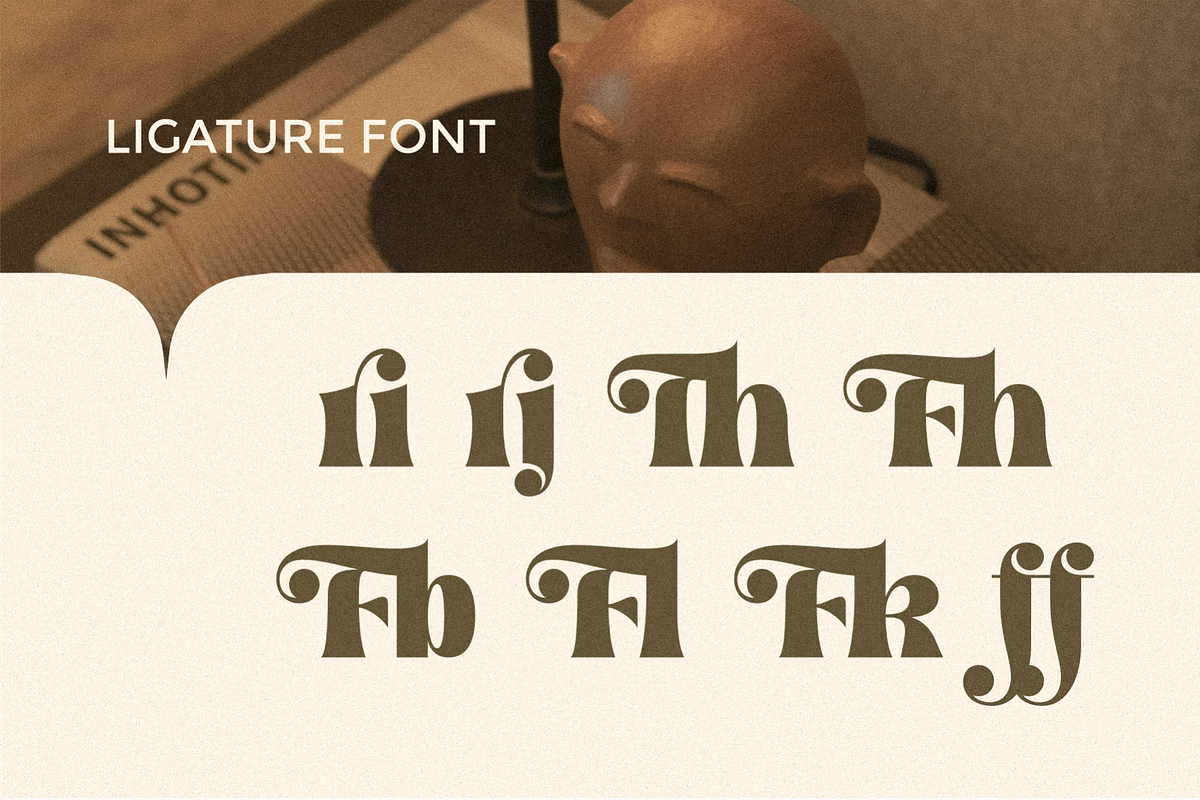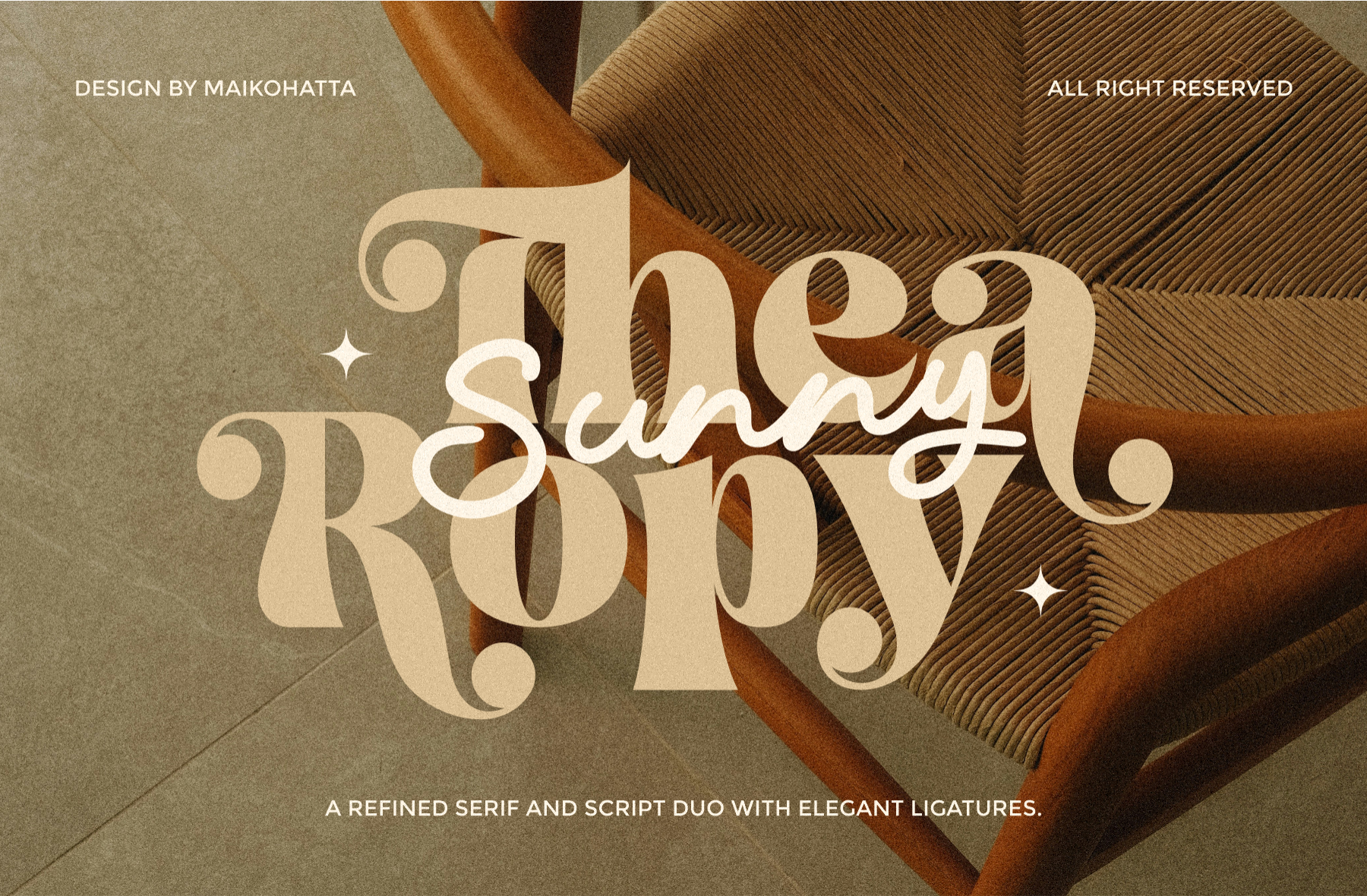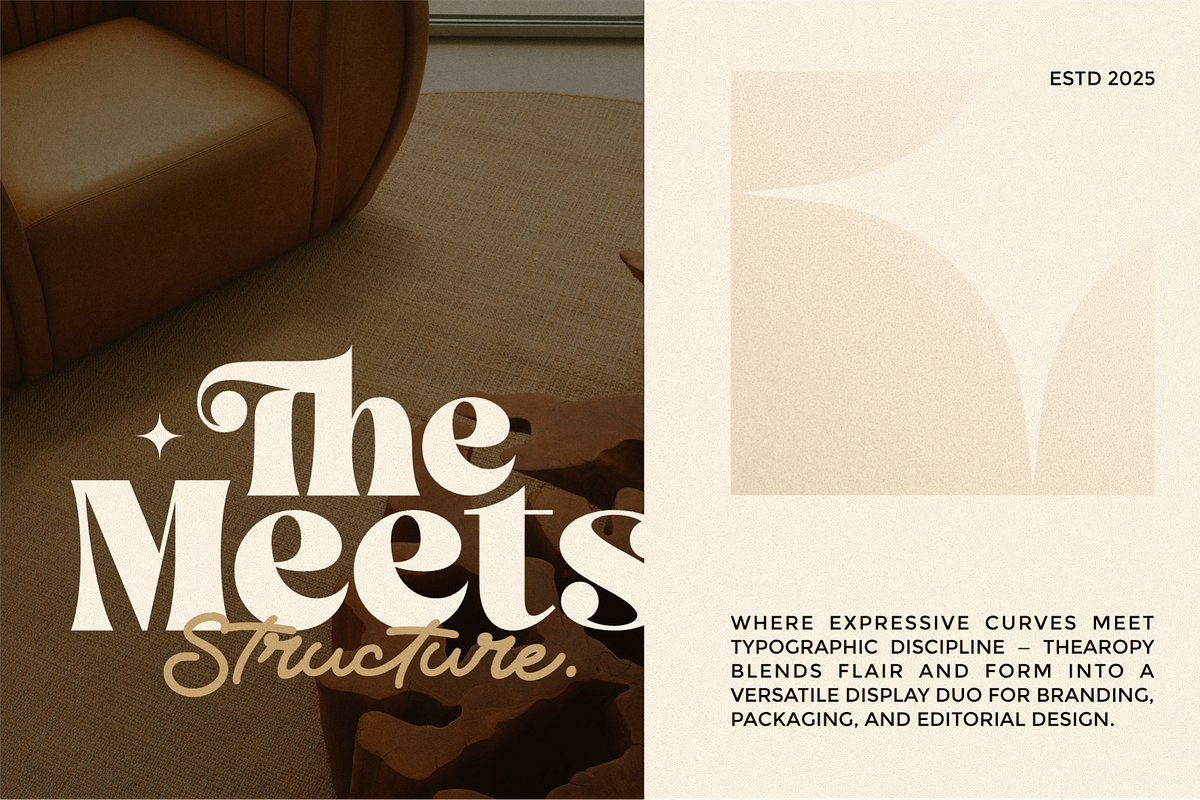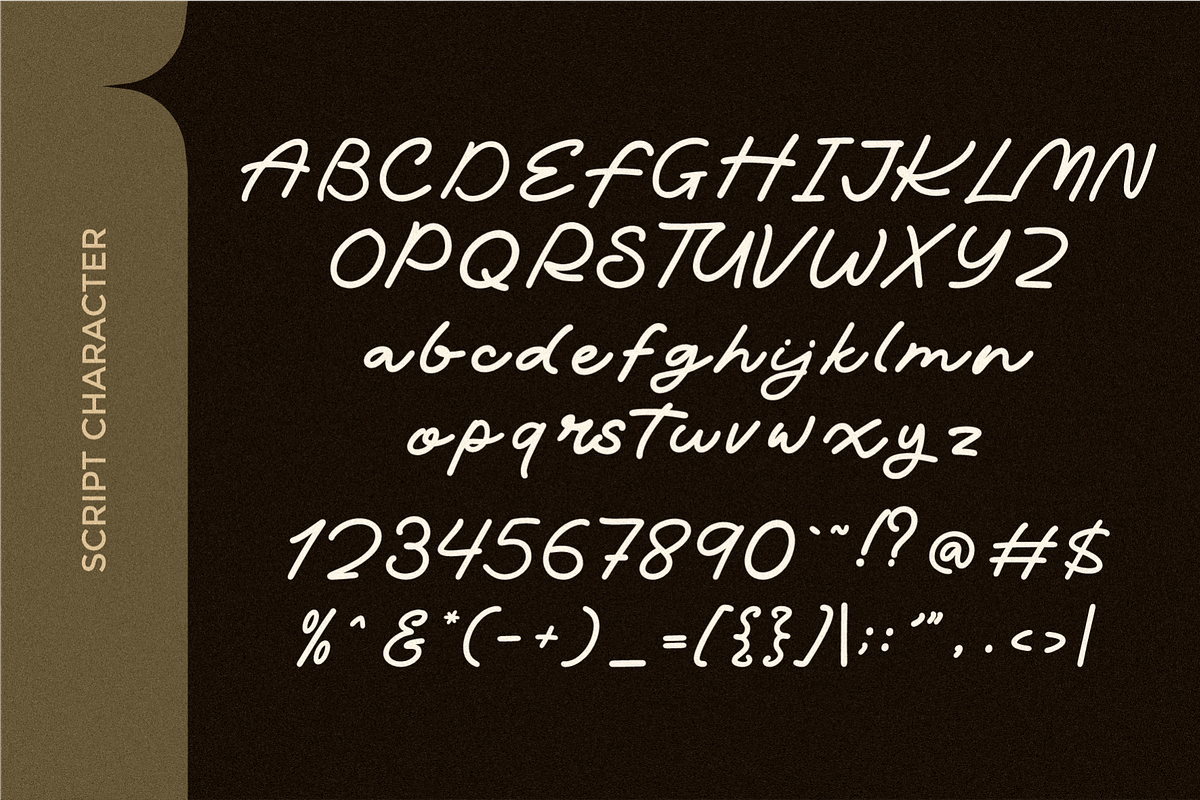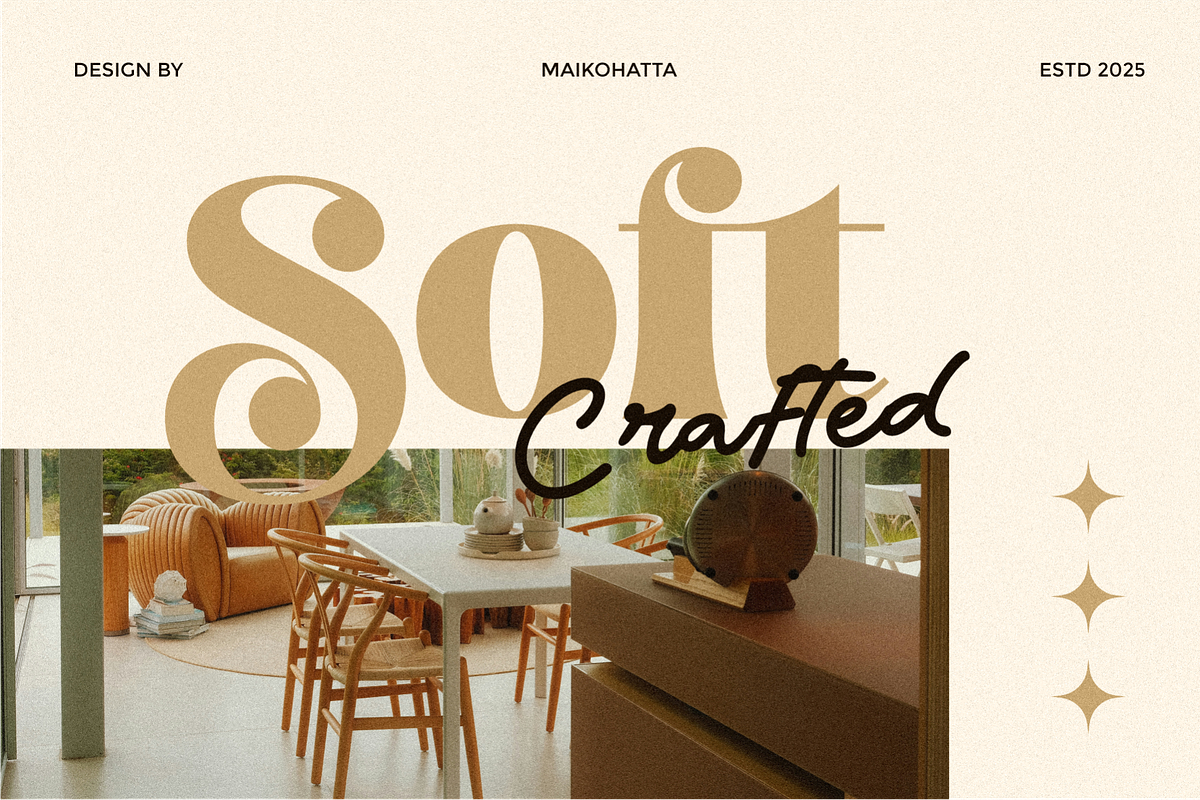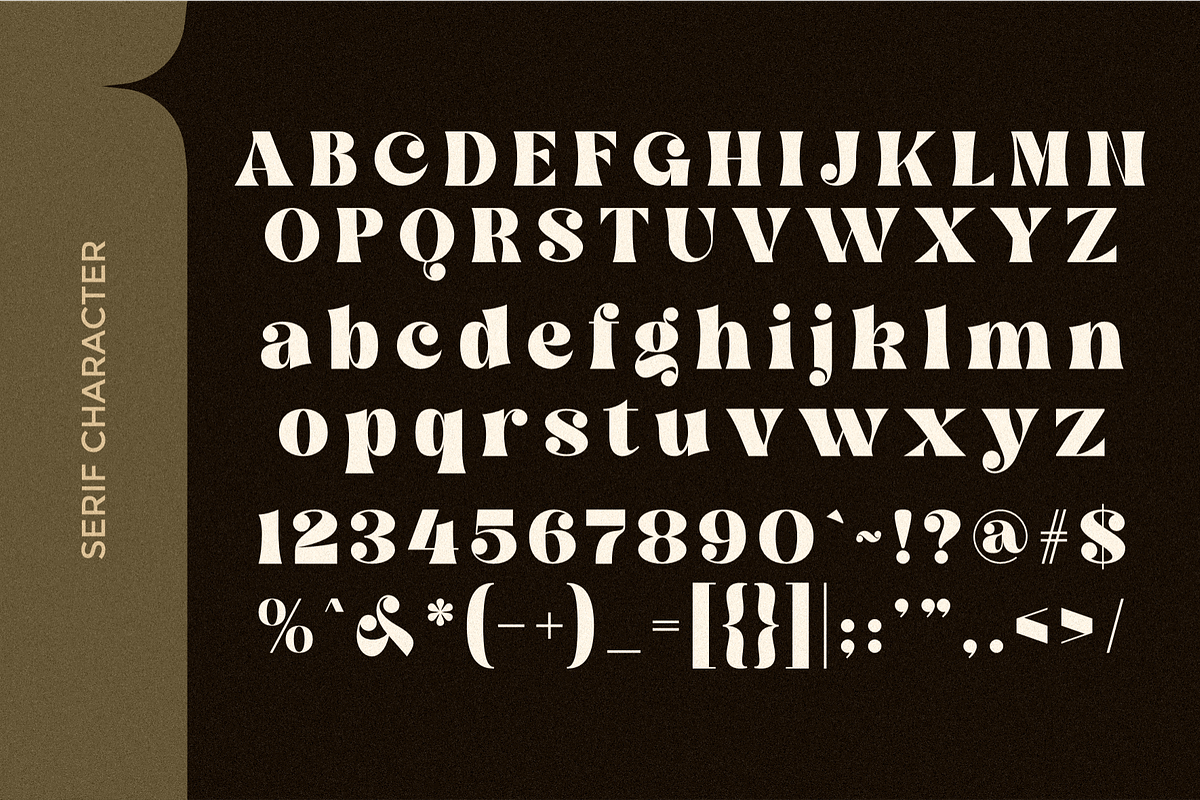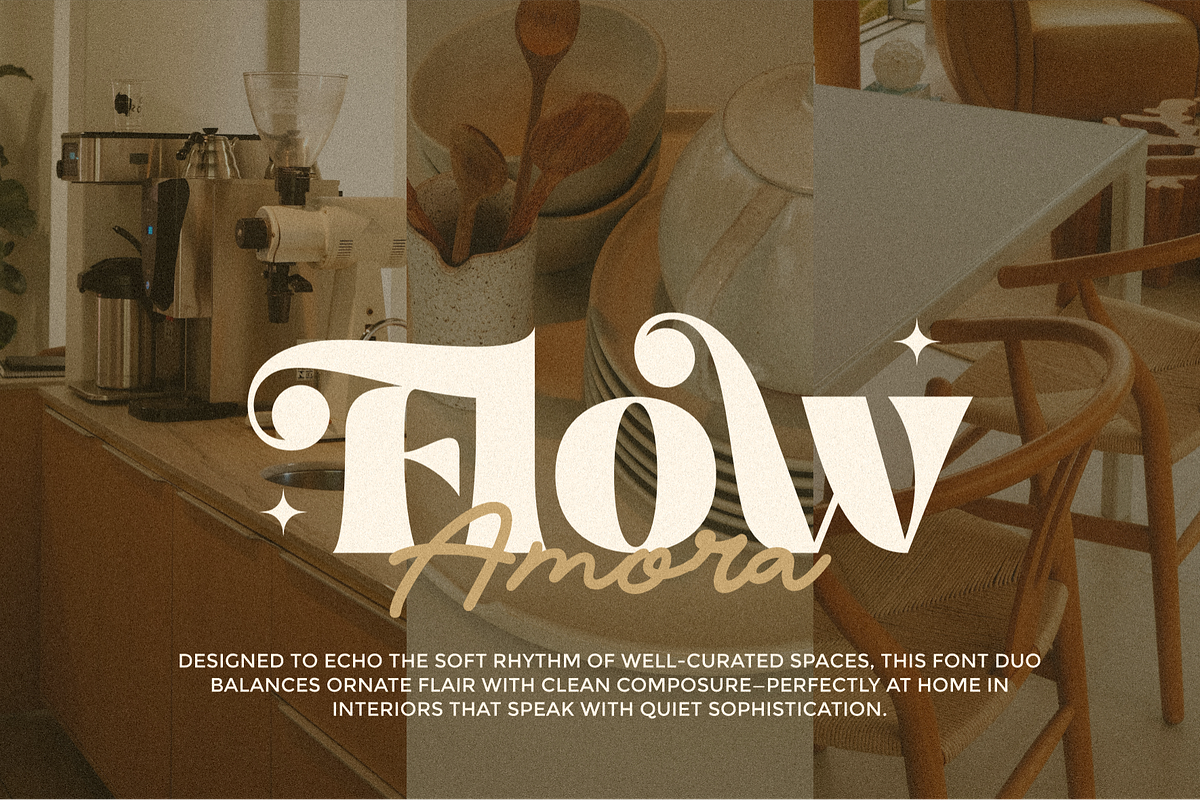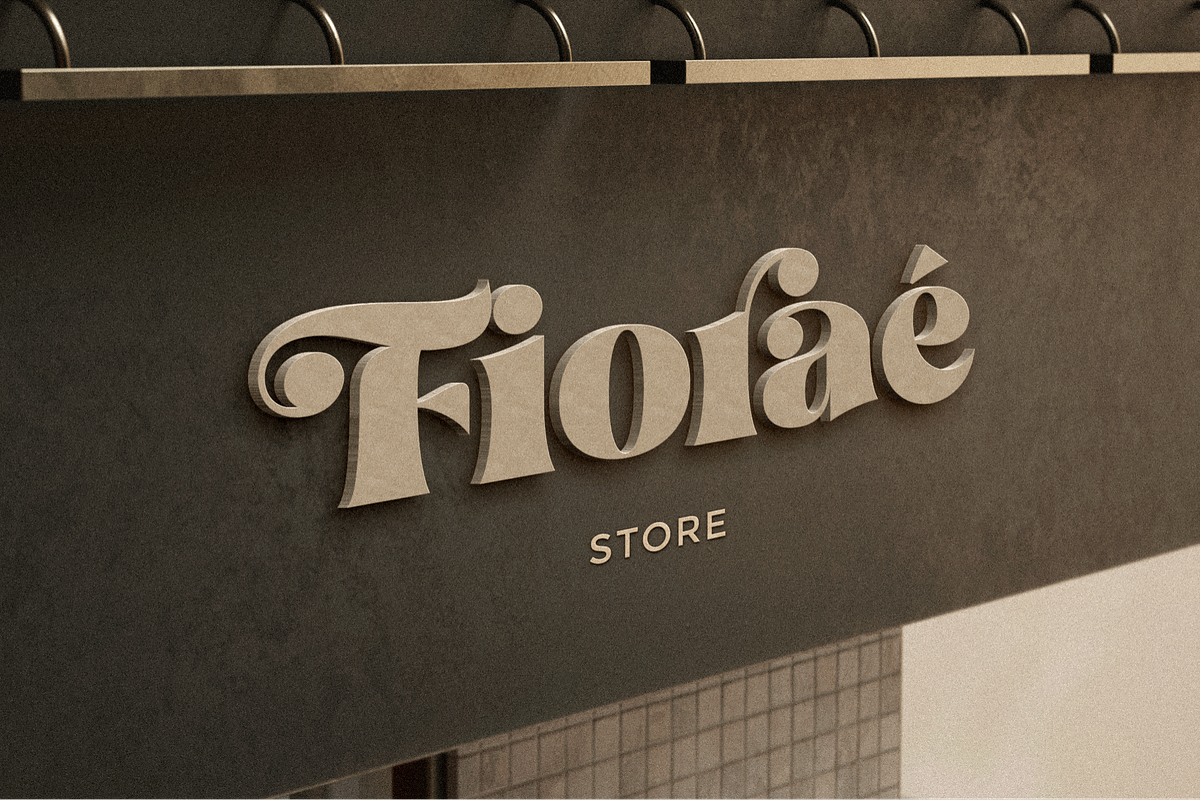
Thearopy - Font Duo Typeface
Thearopy is a sophisticated font duo that harmoniously blends an elegant serif typeface with a modern, flowing script. Designed with meticulous attention to detail, the serif style showcases bold, high-contrast letterforms with artistic flourishes and stylish ligatures, evoking a sense of timeless refinement. The accompanying script adds a soft, hand-lettered charm with its smooth curves and natural flow, making it perfect for brand identities, wedding invitations, editorial design, and high-end packaging.
Whether used together or separately, Thearopy offers a versatile and luxurious typographic solution that brings a touch of warmth and elegance to any creative project.